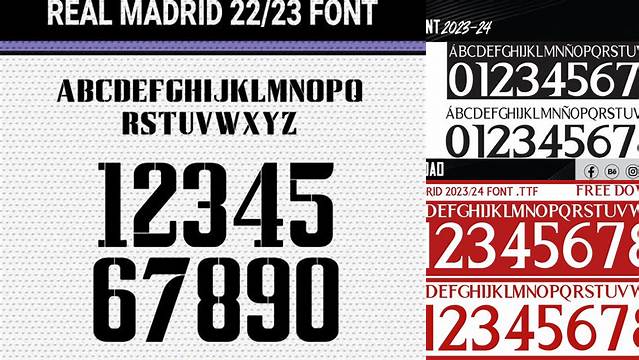
Hey football fans! Are you looking to capture the spirit of the legendary Real Madrid in your designs? Well, you've come to the right place! We're diving deep into the iconic Real Madrid font for the 2023/24 season, and we'll show you where to snag a free TTF download. Whether you're creating fan art, designing your own jerseys, or just want to add a touch of Los Blancos to your projects, having the right font is crucial. So, let’s get started and explore everything you need to know about the Real Madrid font!
Real Madrid 2023/24 Font: An Overview
The Real Madrid font for the 2023/24 season is more than just letters and numbers; it's a symbol of the club's rich history, its winning mentality, and its global fanbase. The font embodies the elegance and power associated with Real Madrid. When you see it, you immediately think of legendary players, historic victories, and the prestige of the club. The design elements often incorporate subtle nods to the club's crest and the city of Madrid itself. Understanding the nuances of the Real Madrid font allows you to use it effectively, ensuring your creations resonate with the club’s identity. The visual impact of the font is significant, making it an essential element for fans and designers alike. Using the correct font can elevate your project, adding an authentic touch that truly celebrates Real Madrid.
Using the Real Madrid Font in Your Designs
Now that you've got the Real Madrid font installed, it's time to unleash your creativity. Think about all the ways you can use this font to show your support for Los Blancos. From creating eye-catching social media graphics to designing custom jerseys, the possibilities are endless. When using the font, consider the overall design aesthetic. The Real Madrid font is bold and impactful, so it works well for headlines, titles, and large text elements. Experiment with different colors and sizes to see what works best for your project. If you're designing a jersey, ensure the font size and placement comply with regulations. For fan art, use the font to add an authentic touch to your posters and banners. Remember, the goal is to capture the spirit of Real Madrid in your designs, so let your passion shine through!
Real Madrid Jersey Font History
Delving into the Real Madrid jersey font history is like taking a trip down memory lane for any true fan. Over the years, the font used on the Real Madrid jersey has evolved, reflecting both the club's identity and the trends of the time. Each era has its unique font style, from classic serif fonts to more modern and sleek designs. Understanding this history can give you a deeper appreciation for the current Real Madrid font and how it fits into the club's legacy. You might notice how certain fonts evoke memories of specific seasons or legendary players. Exploring the evolution of the font also highlights the importance of typography in sports branding. The font is not just a functional element; it's a part of the club's visual identity, contributing to its global recognition. So, next time you see a Real Madrid jersey, take a moment to appreciate the font – it's a piece of history in itself!
Alternative Fonts for Real Madrid Designs
If you're unable to find the exact Real Madrid font or need a similar alternative, there are several options to consider. Many fonts capture the same bold and dynamic feel, making them suitable for Real Madrid-themed designs. Look for fonts with strong, clean lines and a modern aesthetic. Sans-serif fonts often work well, as they convey a sense of strength and clarity. Websites that offer font pairings can be helpful in finding fonts that complement each other, allowing you to create visually appealing designs. Experiment with different styles and weights to find the perfect match. While using the official Real Madrid font adds authenticity, a well-chosen alternative can still capture the essence of the club's identity. Don't be afraid to explore and find a font that suits your project's needs.
Customizing Your Designs with Real Madrid Colors
The Real Madrid font is just one piece of the puzzle when creating authentic designs. To truly capture the club's spirit, you also need to incorporate its iconic colors. The classic white, often paired with gold or purple accents, is instantly recognizable as Real Madrid. Using the official color codes ensures your designs are consistent with the club's branding. Consider how the font color interacts with the background and other design elements. A white font on a dark background can create a striking contrast, while gold lettering adds a touch of elegance. Experiment with different color combinations to find the perfect balance. Remember, the colors you choose play a crucial role in conveying the identity and prestige of Real Madrid. So, pay attention to color harmony and ensure your designs are visually appealing and true to the club's brand.
The Evolution of Fonts in Football History
The evolution of fonts in football history reflects the changing styles and technologies of the sport. Early football fonts were often simple and functional, designed primarily for readability. As printing and design techniques advanced, fonts became more elaborate and expressive. The introduction of digital fonts revolutionized football typography, allowing for greater creativity and customization. Today, many clubs have their own unique fonts that are closely tied to their brand identity. Exploring the history of football fonts provides valuable insights into the sport's visual culture and the role typography plays in shaping its identity. From classic serif fonts to modern sans-serif designs, the evolution of fonts in football is a fascinating story of innovation and style.